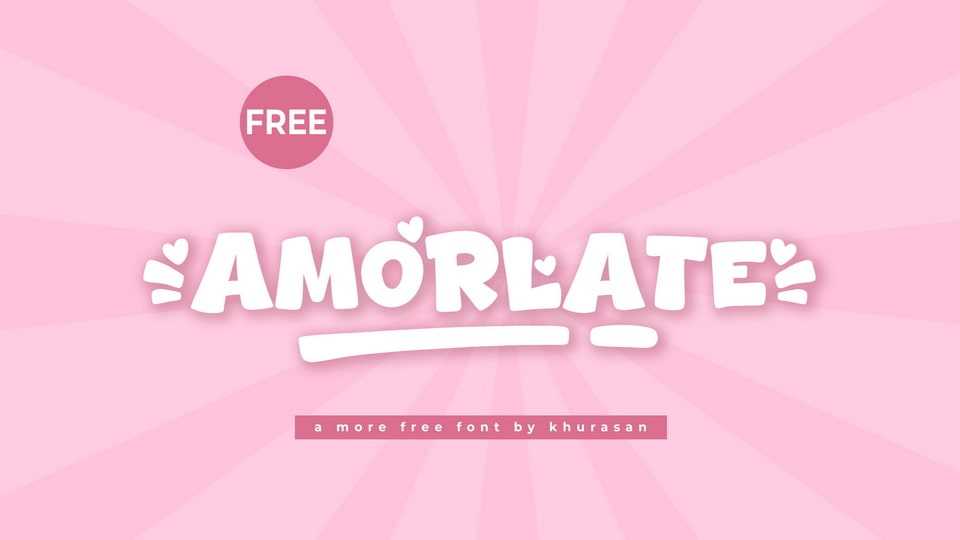
Download Amorlate font, a charming hand-crafted typeface bursting with love and playfulness with its bold letterforms, rounded edges, and adorable heart details.